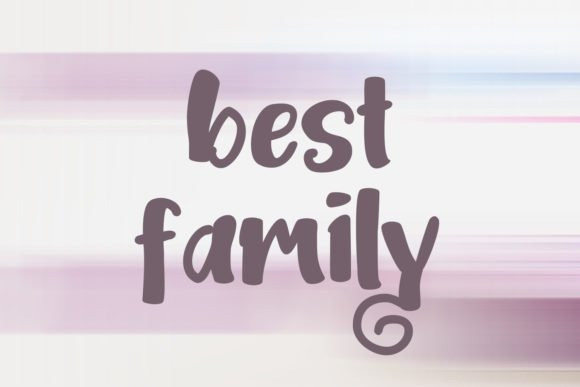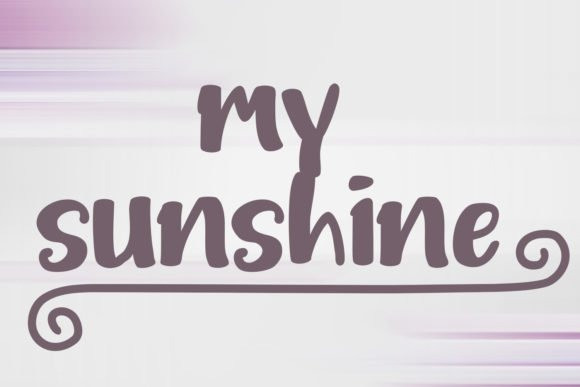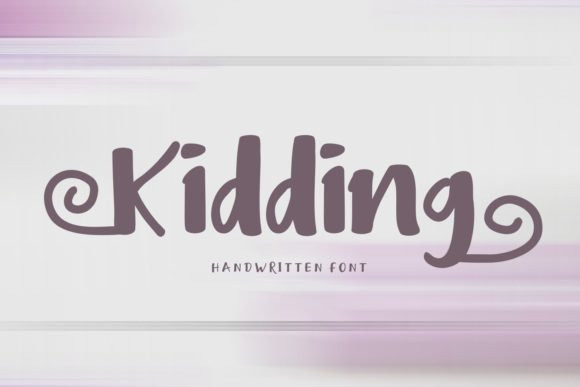
Kidding Display Font
Kidding is a thick lettered yet sweet and joyful handwritten font. This font is PUA encoded which means you can access all of the glyphs and swashes with ease!